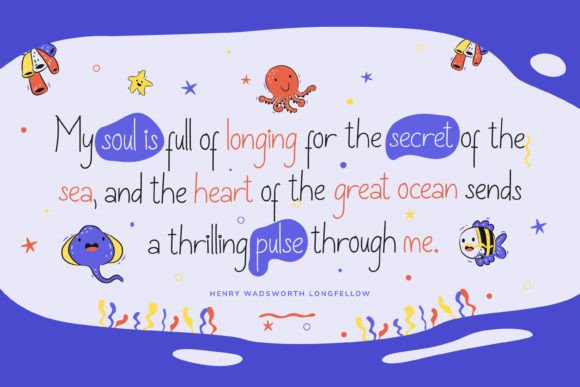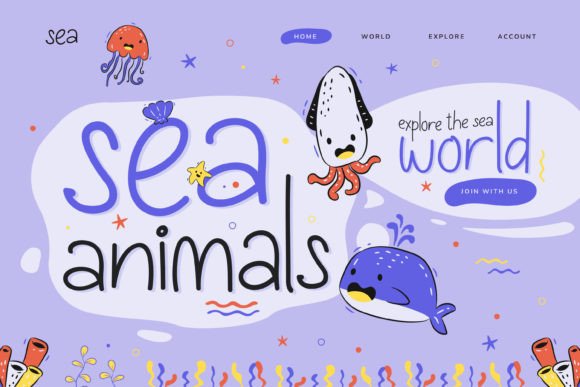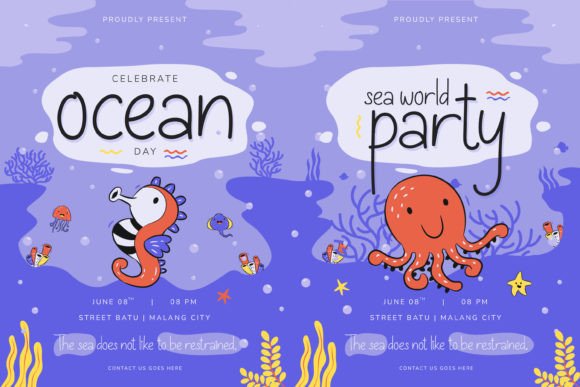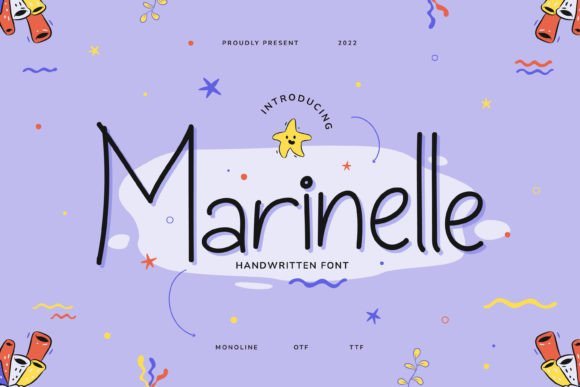
Introduction to Marinelle Font
Marinelle is a delicate and flowing handwritten font.
It has beautiful and well-balanced characters and as a result, it matches a wide pool of designs .
Key Features of Marinelle Font
Why Choose Marinelle Font?